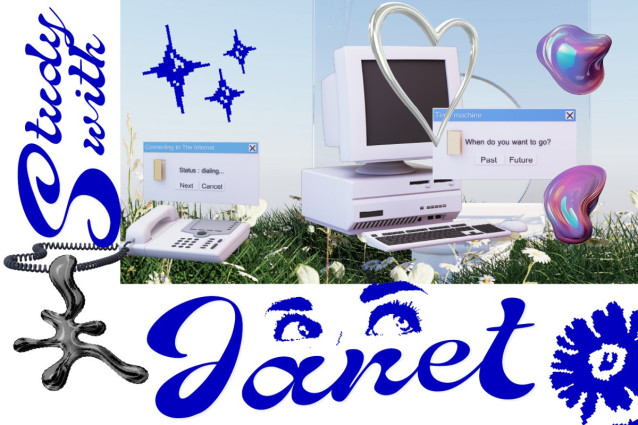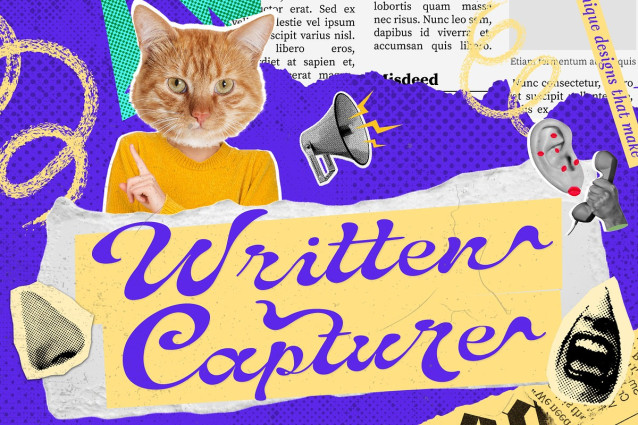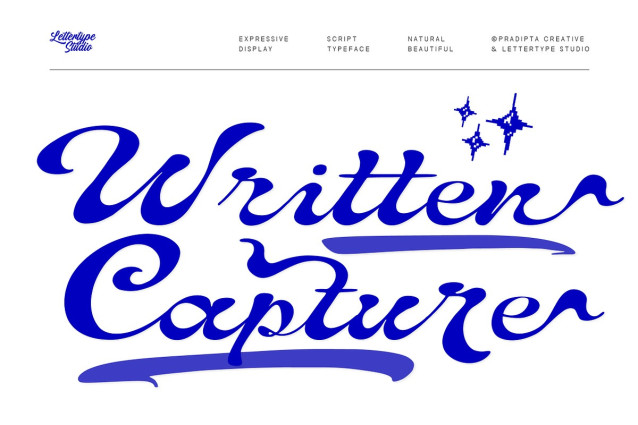
Written Capture Font
Written Capture Font was developed to reflect the expressive side of handwriting. Rather than aiming for perfect uniformity, the typeface embraces subtle irregularities that add warmth, movement, and personality to each word.
Throughout its design process, attention was placed on stroke balance and letter connections. These details help maintain visual flow while allowing each character to stand confidently in display settings.